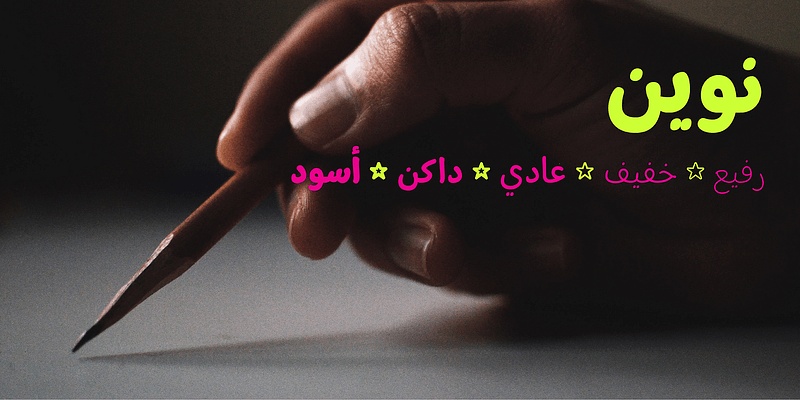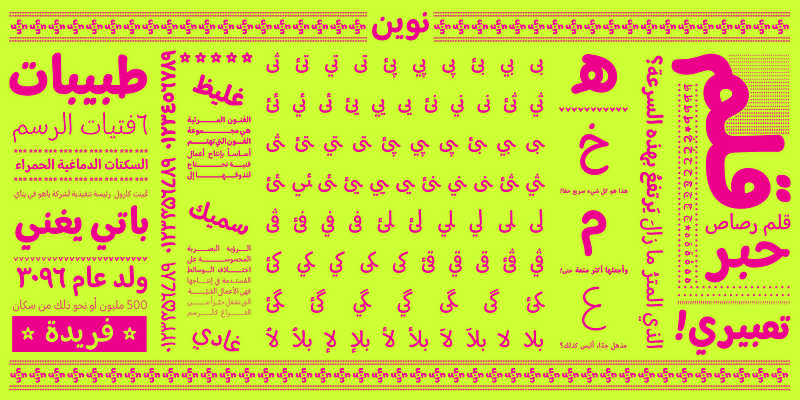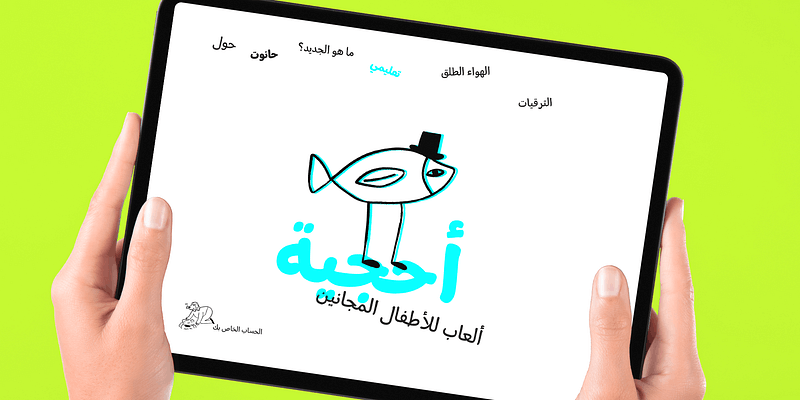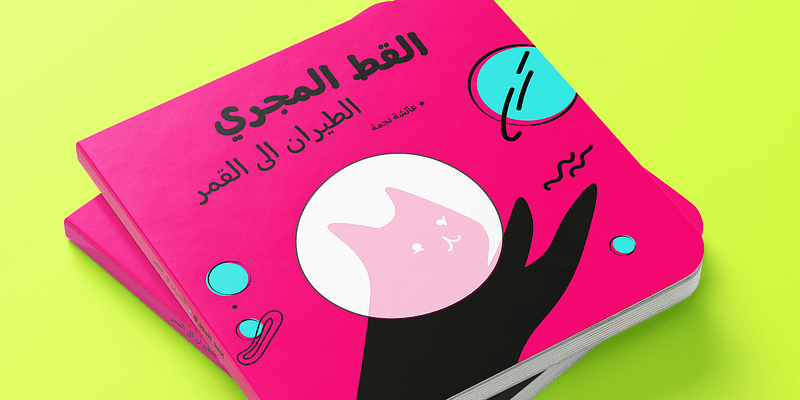
Nawin is an informal typeface inspired by handwriting. The typeface is a multi-script font family, including Arabic and Latin scripts. The idea behind this design is to create a type family attractive and ownable for children and, at the same time a design that keeps excellent letter recognition for reading. Handwriting has been a great source of inspiration in this particular typeface. By emulating the movements of the pen, we have obtained letter shapes that express spontaneity. A bright group of letters create a lively and beautiful paragraph of text.
To get closer to handwriting and the variety of letter shapes that humans produce while writing, this typeface offers a large number of alternative characters, which differ slightly from the default ones. Because we have programmed the «Contextual Alternate» feature in the fonts, these alternate characters appear automatically as you set a text on your computer with this feature on.